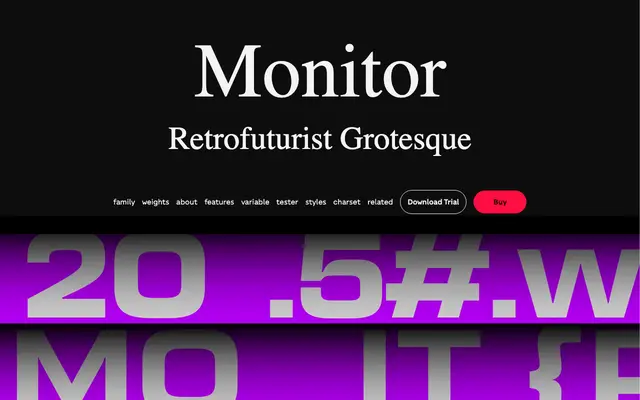
Monitor
Zetafonts · Francesco Canovaro, Cosimo Lorenzo Pancini, Mario De Libero · 2025
A 60-style industrial grotesque superfamily spanning five widths, drawing from Eurostile's modular logic but replacing its rounded joints with sharper, more angular geometry.
Designed by Francesco Canovaro, Cosimo Lorenzo Pancini and Mario De Libero, Monitor takes the utilitarian structure of Eurostile and Microgramma as its starting point, then strips out their vintage curves in favour of hyper-geometric stroke junctions and accentuated ink traps. The result has a crisper, more assertive character suited to digital interfaces, editorial systems and sports branding. A variable font covering weight, width and italic axes is included in the full family package, alongside OpenType features such as elongated uppercase alternates triggered by triple-repeated capitals.
Monitor is an industrial grotesque with a highly geometric construction, low contrast, and angular stroke joins that deliberately depart from Novarese's hyper-elliptical Eurostile in favour of a sharper, more rational structure.